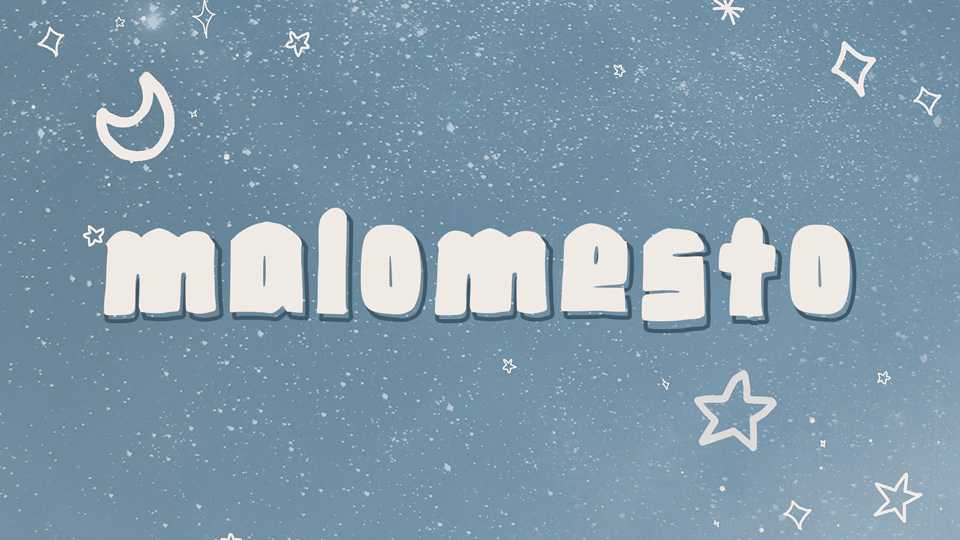
Download Malomesto font, a fun and playful hand drawn typeface. Malomesto is perfect for crafts, design for children, books, cards, posters, quotes and more.
Designer: Anna Krikunova